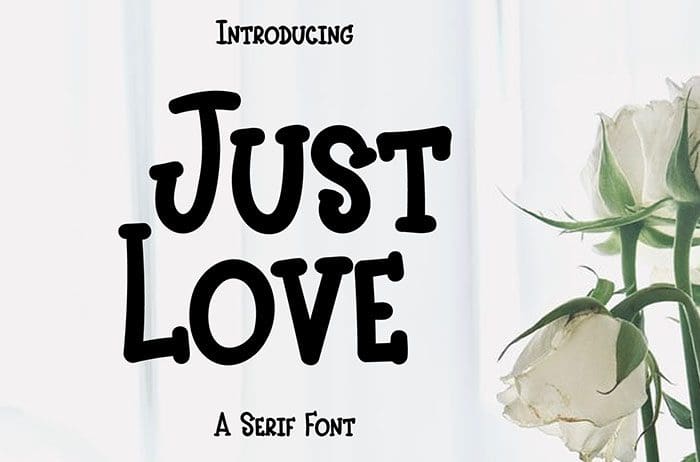
Just Love Serif Font
Just Love is friendly, cute and childish Serif Font. It embodies playfulness and authenticity and is the perfect choice for any children activity or school project. Thanks to Wanida Sapsanthitikul for sharing this font! Take a look at this portfolio for more of his stunning fonts.